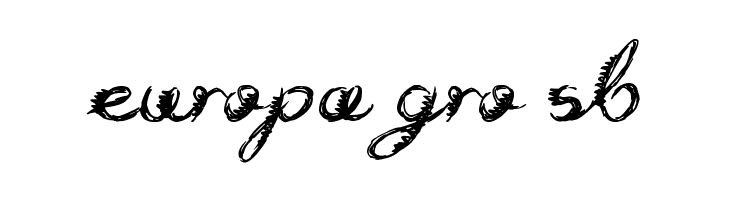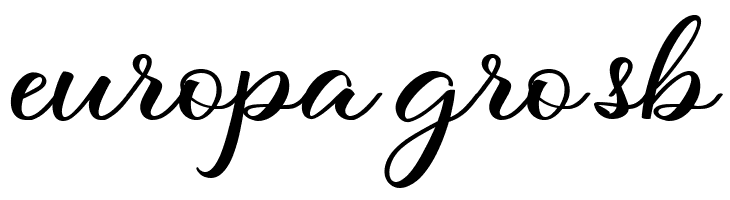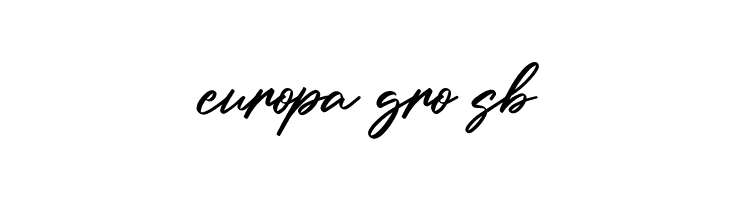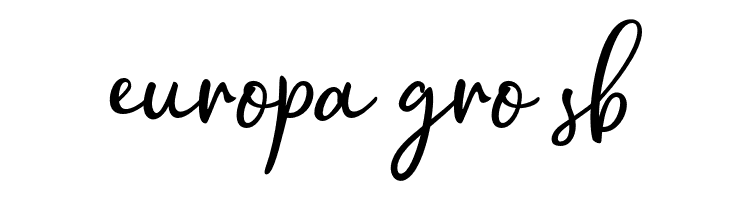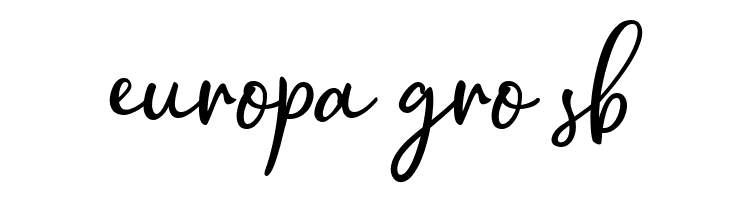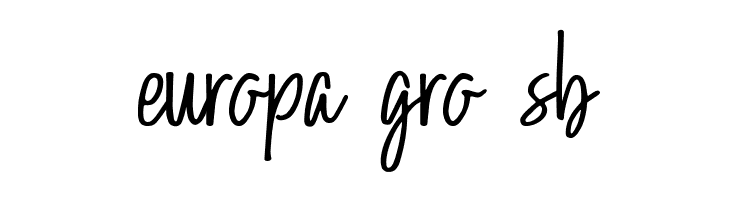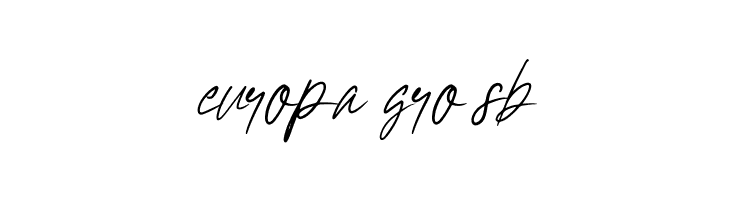
An ornate, decorative script font with feather-like embellishments.
An elegant cursive font with decorative flourishes and smooth connections.
A bold, cursive font with elegant, flowing strokes and a dynamic slant.
A lively and flowing script font with elegant, connected letterforms.
A flowing, elegant script font with a handwritten aesthetic.
A playful, casual handwritten font with fluid strokes and dynamic character shapes.
A lively handwritten font with fluid strokes and a playful elegance.
A dynamic, expressive handwritten font with fluid, cursive strokes.